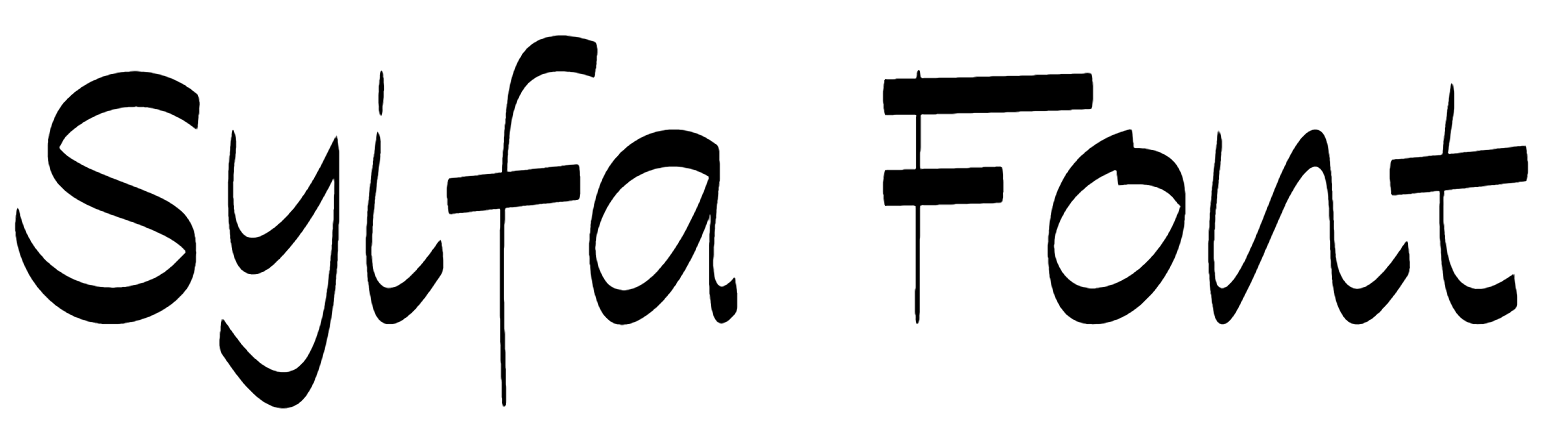
Syifa
Syifa is a handwritten font designed by Muhammad Nashrul Aziz. It has a casual, written-with-a-pen look that makes designs feel personal. It's a free download, and you can try it with your own text in the preview above first.
- Designer: Muhammad Nashrul Aziz
What You Can Type With Syifa
You get every letter from A to Z in both cases and all the numbers from 0 to 9, which means Syifa can handle full sentences, dates and prices. Common punctuation such as &, !, ? and @ is included as well. It also has the accented letters you need for Spanish, French, Portuguese and Italian.
Where Syifa Works Best
Syifa is a natural fit for greeting cards, journal pages and friendly social posts. Its lowercase letters are tall compared to the capitals, which keeps it readable at smaller sizes. Set it a bit larger than you would a normal text font. Handwriting styles lose their charm once they get too small to read comfortably.
Who designed Syifa font?
Syifa was designed by Muhammad Nashrul Aziz.
Does Syifa support accented letters?
Yes. Syifa includes the accented letters needed for Spanish, French, Portuguese and Italian, so it works for more than just English.